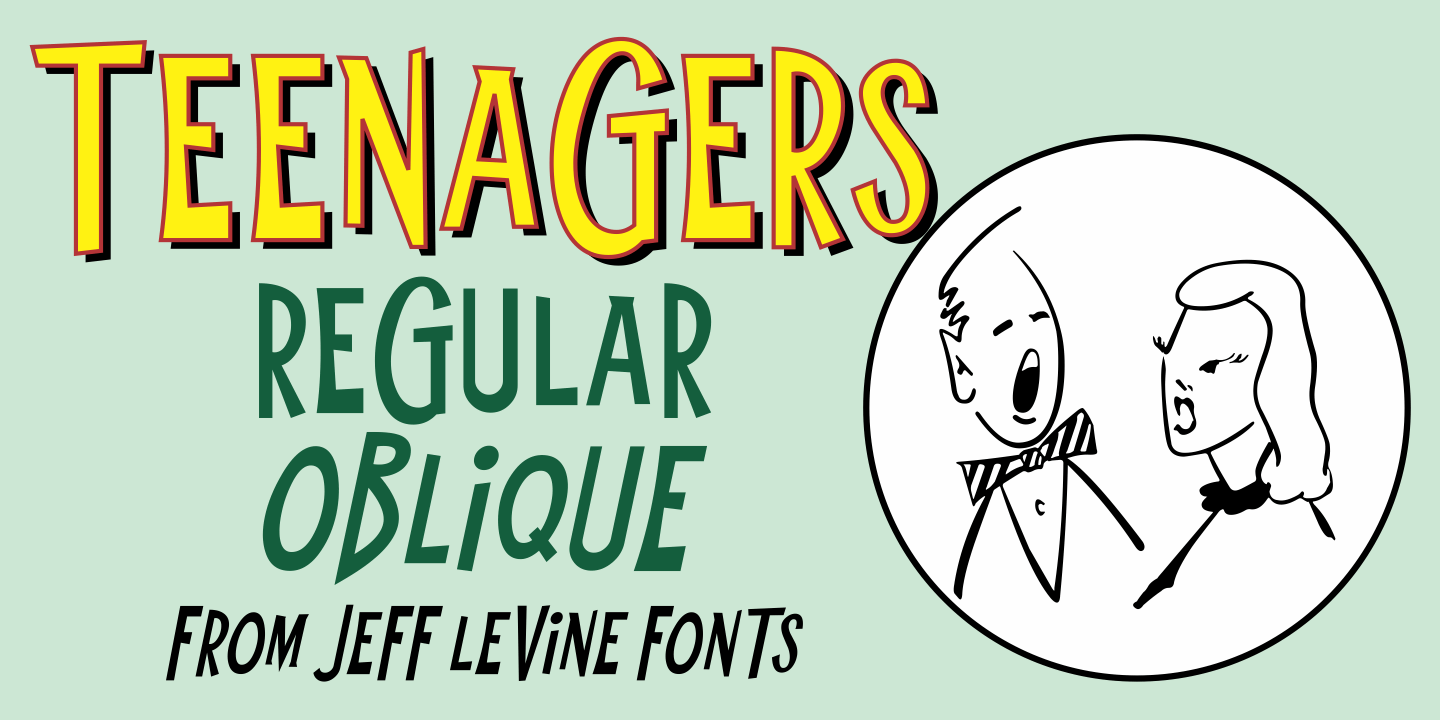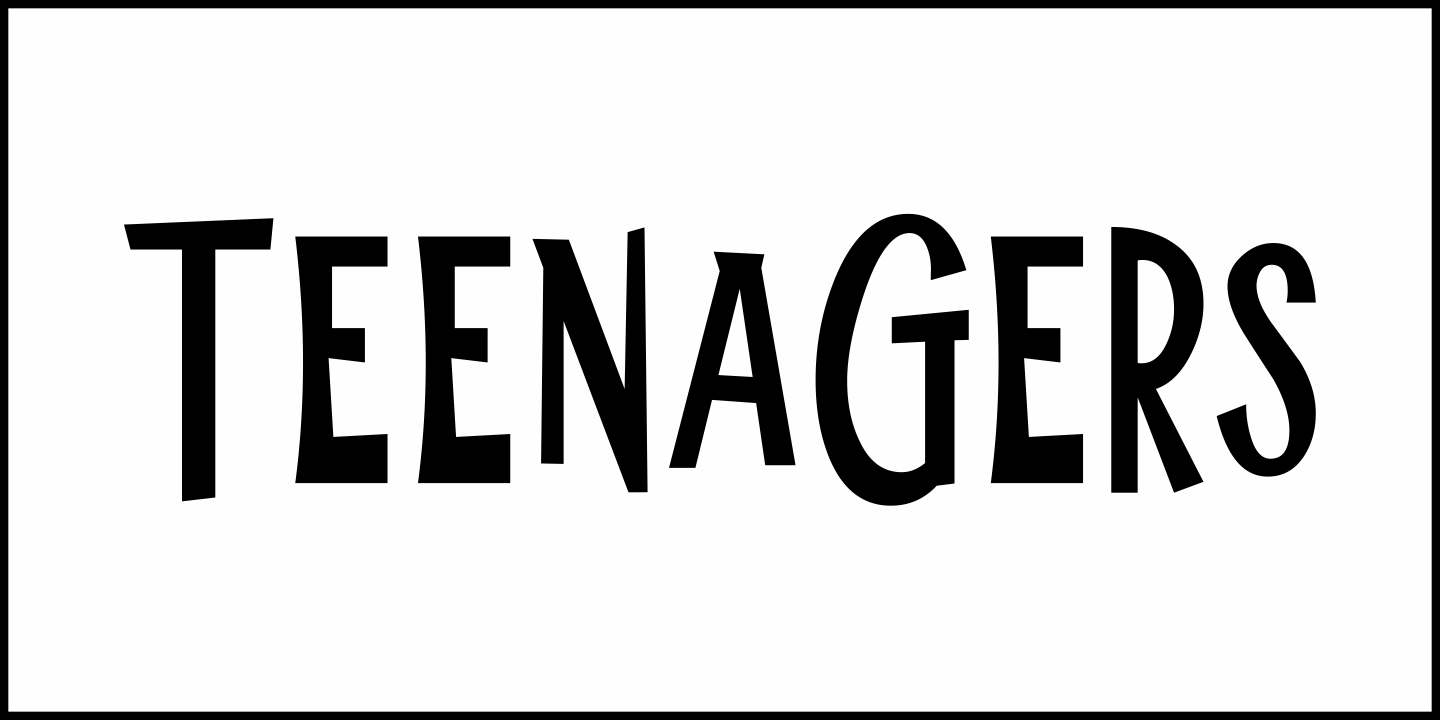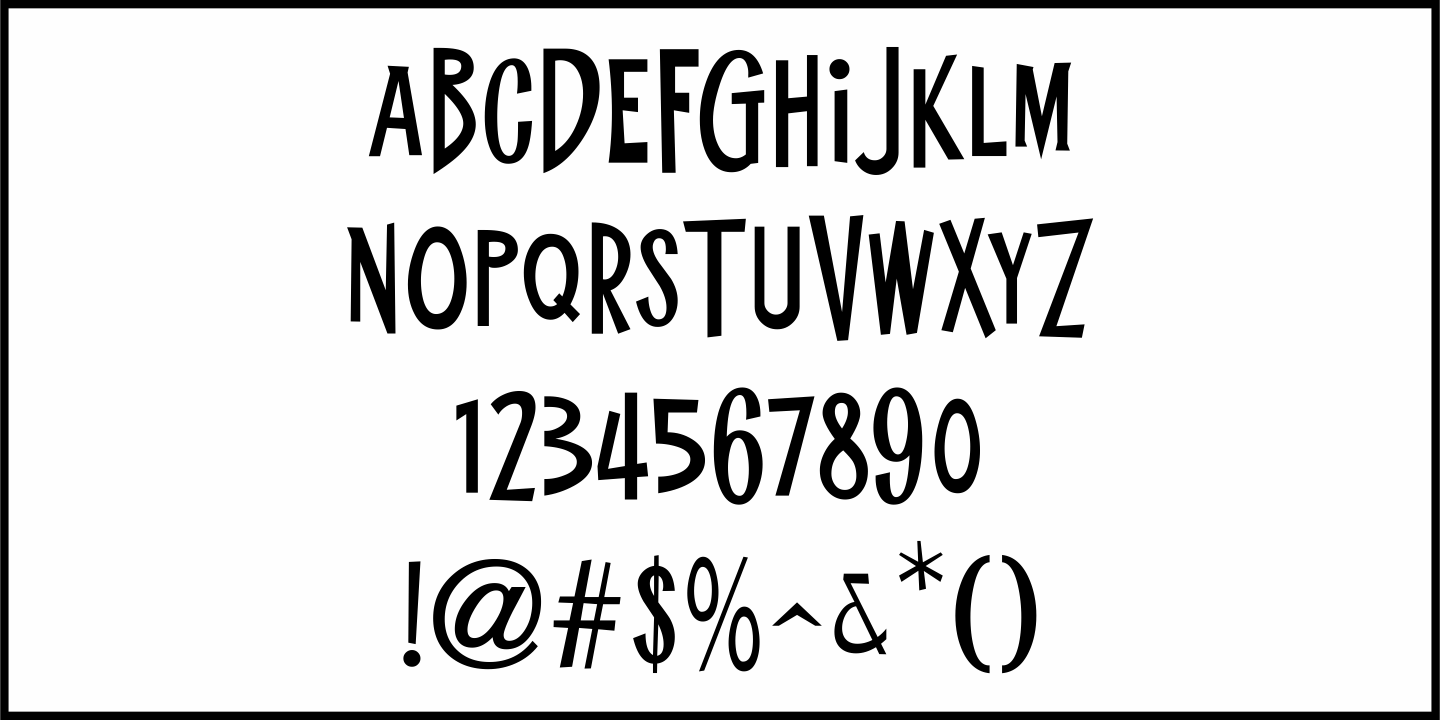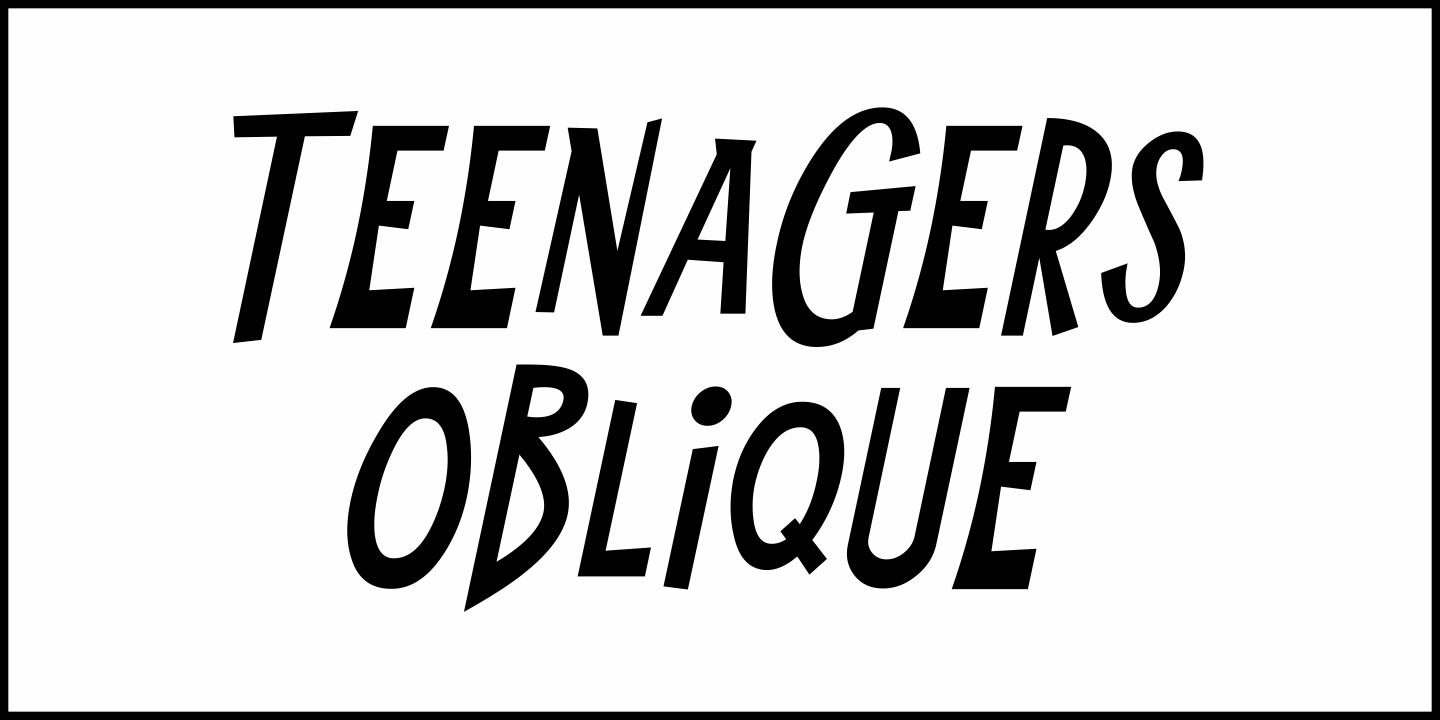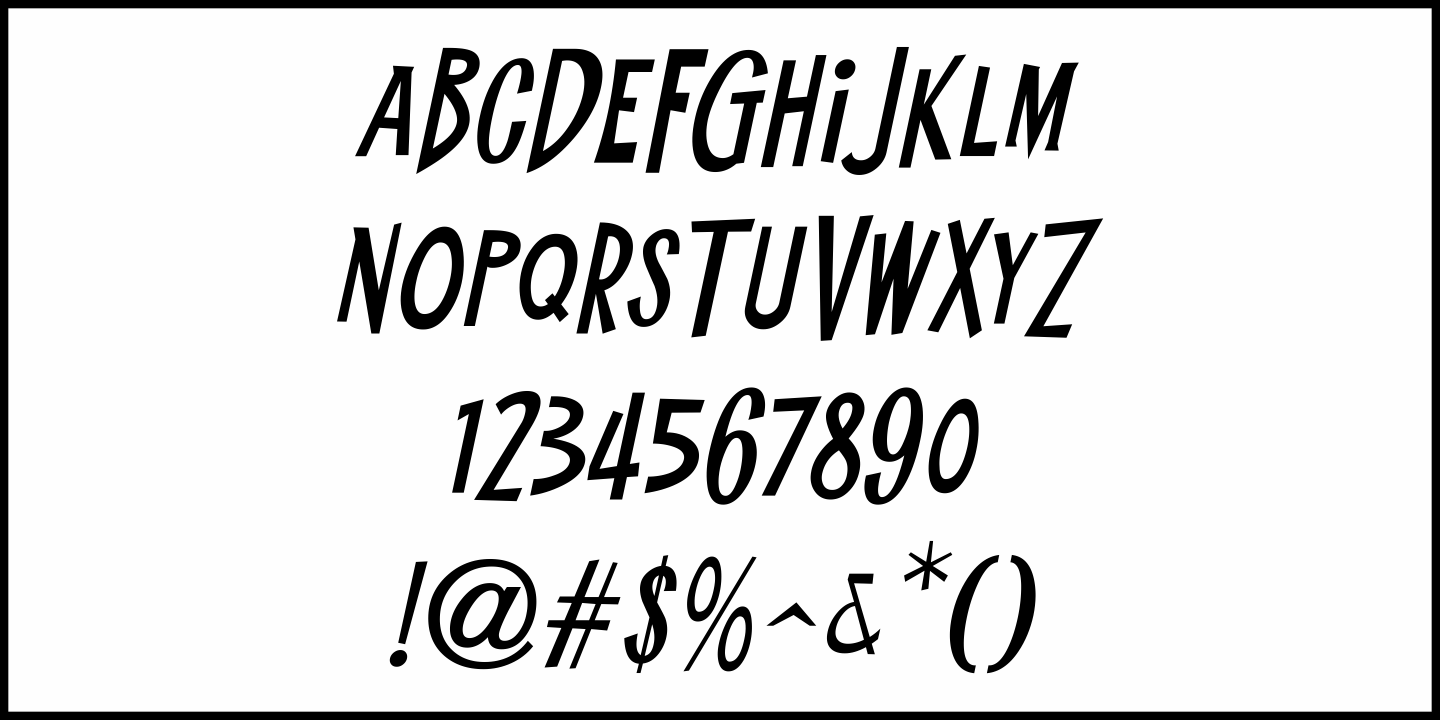
Teenagers
Inspired by the hand lettered opening credits for “(The Many Loves of) Dobie Gillis” – a teen-oriented televisioncomedy that ran from 1959 to 1963 on CBS - Teenagers JNL is available in both regular and oblique versions.